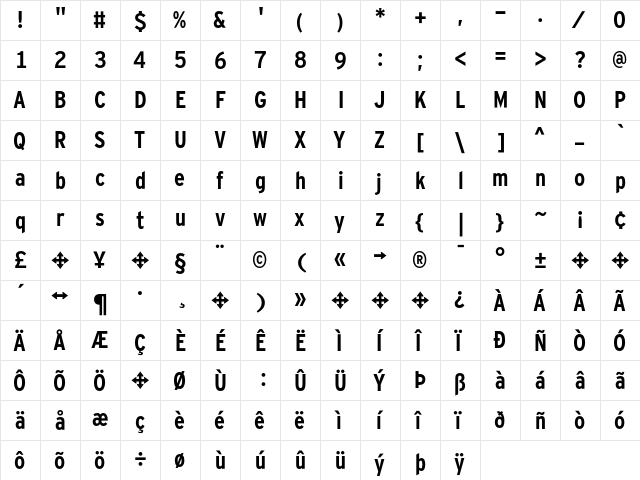
Interstate Cond Mono Bold
Design Context for Interstate Cond Mono Typeface
Interstate Cond Mono brings the precise, column-aligned rhythm of monospaced typography to designs that value technical clarity and systematic order. The heavy weight commands attention and anchors typographic hierarchies.
Pro Tip: Pair Interstate Cond Mono with a proportional sans for UI contexts where code-style labels and regular body copy need to coexist.